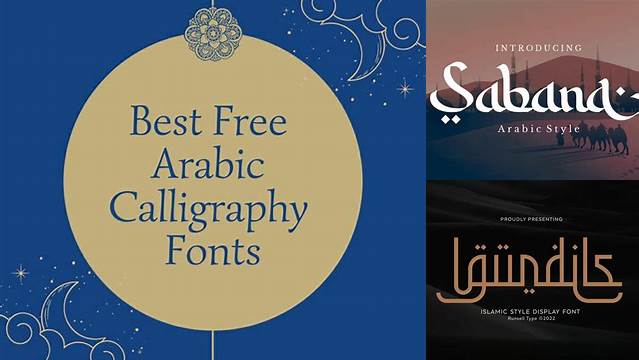
Hey guys! Ever admired the graceful swirls and elegant strokes of Arabic calligraphy? It's a truly beautiful art form, and the good news is, you don't need to be a master calligrapher to incorporate it into your designs. Thanks to the wonders of the internet, you can now free download a fantastic selection of Arabic calligraphy fonts. This article is your go-to guide for finding, downloading, and using these fonts to elevate your projects. Whether you're a seasoned designer or just starting out, you're in the right place. Let's dive in and explore the wonderful world of free Arabic calligraphy fonts!
Understanding Arabic Calligraphy: A Quick Primer
Before we jump into the download links, let's take a moment to appreciate the rich history and significance of Arabic calligraphy. It's not just about pretty letters; it's a deeply rooted art form with a history spanning centuries. Arabic calligraphy, or Khatt in Arabic, is considered one of the most revered art forms in Islamic culture. It's much more than just writing; it's an art that transforms language into visual poetry. The beauty of Arabic calligraphy lies in its diversity of styles, each with its unique characteristics. From the flowing curves of Thuluth to the angular precision of Kufic, there's a style for every purpose and aesthetic preference. Understanding these different styles is key to choosing the right font for your project. This is not just about knowing the best arabic calligraphy font free download but knowing the history of its art.
The Different Styles of Arabic Calligraphy
There are several main styles, or schools, of Arabic calligraphy, each with its distinct features and historical context. Kufic is one of the oldest, known for its geometric and angular forms, often used in early Qur'ans and architectural inscriptions. Thuluth is a more flowing and elegant style, frequently used in titles and headings, known for its curved strokes and versatility. Naskh is a very popular style, often used for printing and everyday writing, known for its clarity and readability. Ruq'ah is a more informal style, ideal for quick notes and personal correspondence, characterized by its simplicity and speed of execution. Each of these styles requires a specific skill set and artistic understanding. Exploring these different styles will help you to pick the right font that will match your project and have a great appeal. Now that you have been familiar with the basics, you will surely be able to choose from the variety of the arabic calligraphy font free download options available.
The Significance of Calligraphy in Islamic Culture
Arabic calligraphy holds a position of immense importance in Islamic culture, as it is closely associated with the revelation of the Quran. The act of writing the divine word is viewed with reverence, and calligraphers are highly respected for their skill and devotion. Calligraphy is used in many aspects of Islamic art, from mosques and religious texts to everyday objects and artistic creations. It’s seen as a way to connect with the divine. The beauty of Arabic calligraphy reflects the aesthetic values of Islamic culture. The focus on balance, harmony, and rhythm is evident in the use of negative space and the intricate details of the letterforms. It is not merely a decorative element but a vital part of the cultural heritage, embodying the values of faith, knowledge, and beauty. Therefore, when looking for arabic calligraphy font free download, remember that you're not just picking a font, but connecting to the beauty of Islamic art.
Specific Arabic Font Websites and Resources
Dedicated Arabic font websites are a must-visit for those who want a deep dive into the world of Arabic calligraphy fonts. These websites often offer a curated selection of fonts, with a focus on quality and design. They may include detailed information about each font, including its history, designer, and intended use. These platforms often feature fonts from both established and emerging designers, giving you a great variety. Some of these websites also have resources that teach you the basics of Arabic calligraphy and font usage. They often provide tutorials, design tips, and inspiration. This can be incredibly valuable. Check the terms of use for each font. It is always a good idea to make sure you're using the fonts legally, for either personal or commercial use. These are the resources you need to get the best arabic calligraphy font free download.